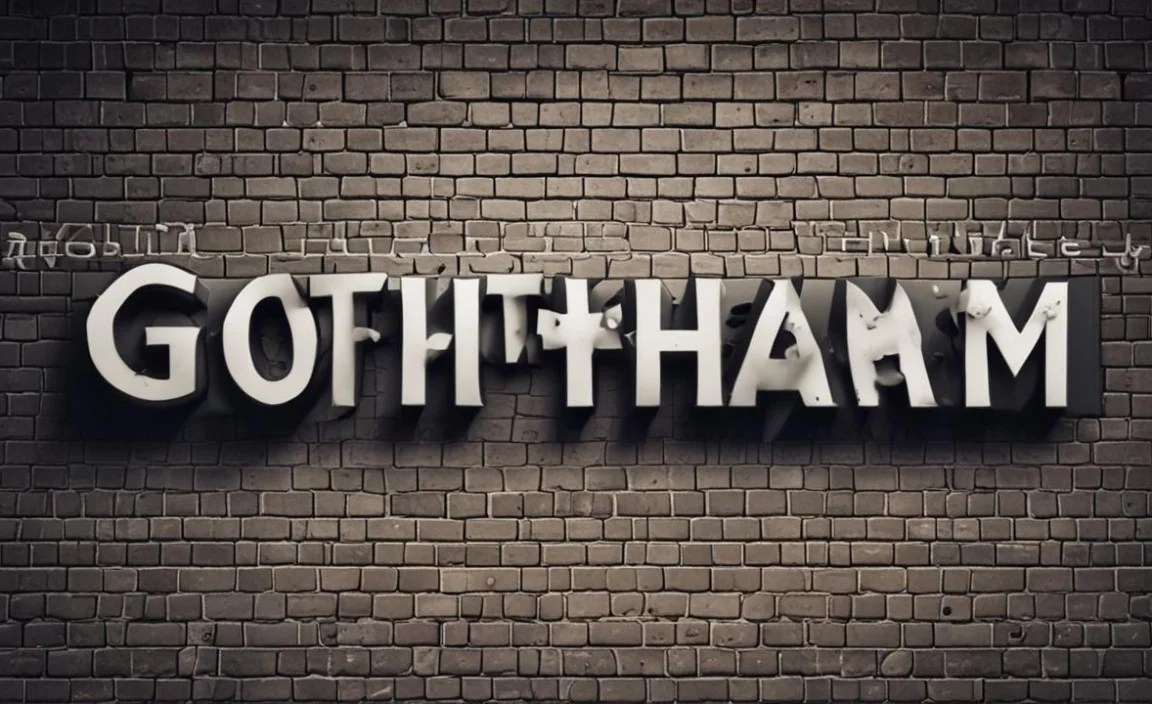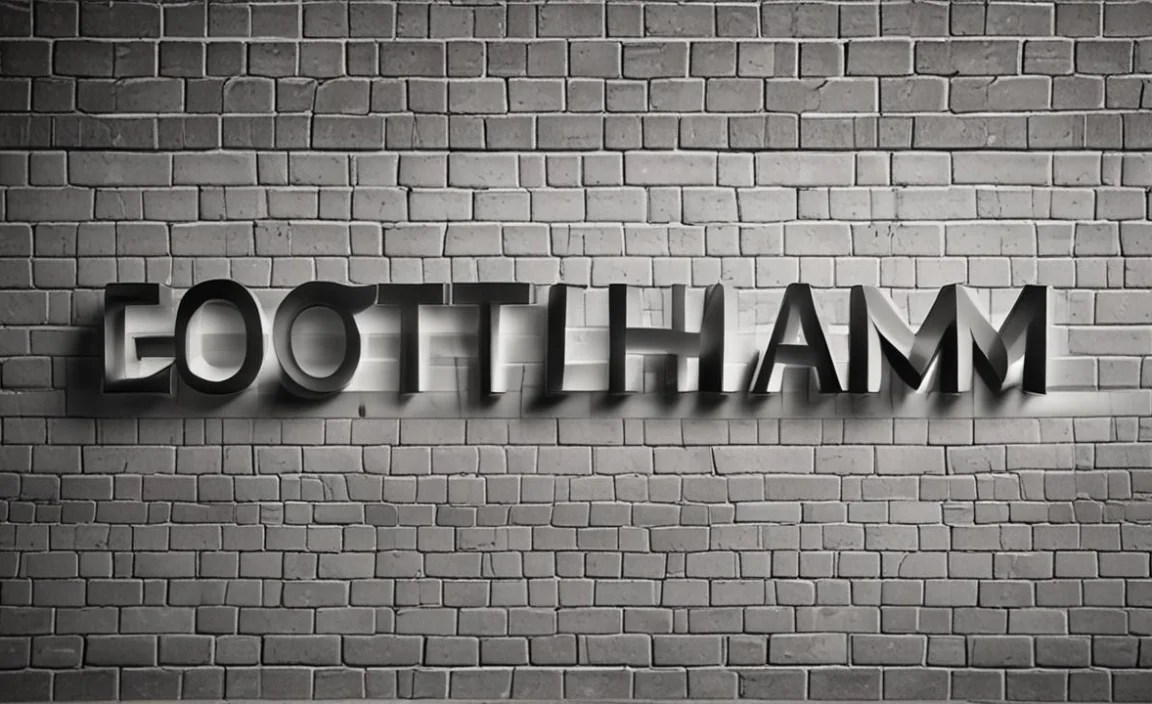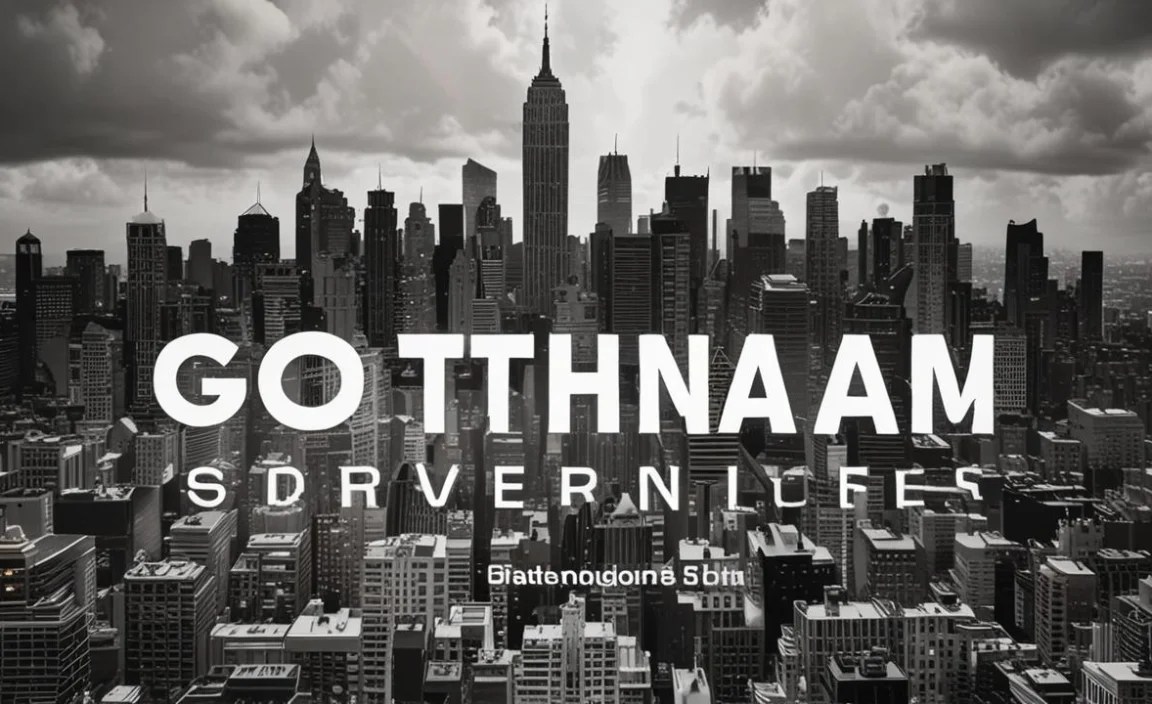
Gotham is a contemporary sans-serif typeface known for its clean lines, modern aesthetics, and versatile usage. Designed by Tobias Frere-Jones in 2000, Gotham has quickly become a favorite among designers and brands for its professional and approachable look.
Gotham Font Information:
| Name | Gotham |
| Designer | Tobias Frere-Jones |
| Type | Geometric Sans-serif |
Gotham Font Family Includes:
- Gotham Thin
- Gotham Thin Italic
- Gotham Extra Light
- Gotham Extra Light Italic
- Gotham Light
- Gotham Light Italic
- Gotham Book
- Gotham Book Italic
- Gotham Medium
- Gotham Medium Italic
- Gotham Bold
- Gotham Bold Italic
- Gotham Black
- Gotham Black Italic
- Gotham Ultra
- Gotham Ultra Italic
- Gotham XNarrow Thin
- Gotham XNarrow Thin Italic
- Gotham XNarrow Extra Light
- Gotham XNarrow Extra Light Italic
- Gotham XNarrow Light
- Gotham XNarrow Light Italic
- Gotham XNarrow Book
- Gotham XNarrow Book Italic
- Gotham XNarrow Medium
- Gotham XNarrow Medium Italic
- Gotham XNarrow Bold
- Gotham XNarrow Bold Italic
- Gotham XNarrow Black
- Gotham XNarrow Black Italic
- Gotham Condensed Thin
- Gotham Condensed Thin Italic
- Gotham Condensed Extra Light
- Gotham Condensed Extra Light Italic
- Gotham Condensed Light
- Gotham Condensed Light Italic
- Gotham Condensed Book
- Gotham Condensed Book Italic
- Gotham Condensed Medium
- Gotham Condensed Medium Italic
- Gotham Condensed Bold
- Gotham Condensed Bold Italic
- Gotham Condensed Black
- Gotham Condensed Black Italic
- Gotham Narrow Thin
- Gotham Narrow Thin Italic
- Gotham Narrow Extra Light
- Gotham Narrow Extra Light Italic
- Gotham Narrow Light
- Gotham Narrow Light Italic
- Gotham Narrow Book
- Gotham Narrow Book Italic
- Gotham Narrow Medium
- Gotham Narrow Medium Italic
- Gotham Narrow Bold
- Gotham Narrow Bold Italic
- Gotham Narrow Black
- Gotham Narrow Black Italic
- Gotham Rounded Light
- Gotham Rounded Light Italic
- Gotham Rounded Book
- Gotham Rounded Book Italic
- Gotham Rounded Medium
- Gotham Rounded Medium Italic
- Gotham Rounded Bold
- Gotham Rounded Bold Italic
- Gotham Rounded Black
- Gotham Rounded Black Italic
Where Gotham Font Is in Use
Gotham is widely used across various design disciplines, including corporate branding, advertising, editorial, and web design. Its geometric structure and versatile style make it a preferred choice for many high-profile projects. Notable uses include:
- Barack Obama’s 2008 presidential campaign materials
- Coca-Cola’s branding
- Spotify’s interface
- New York University’s branding
Gotham Font Alternatives
Gotham Font FAQs
2. Why is Gotham a Popular Choice Among Designers?
Gotham’s popularity stems from its clean, modern design and versatile usage, making it ideal for various design applications, from corporate branding to digital interfaces.
3. What Is Microsoft Font Similar To Gotham?
Proxima Nova is a similar font to Gotham in the Microsoft library. Gotham is a sans serif font designed by Tobias Frere-Jones and is part of the Gotham font family, which includes variations like Gotham Book, Gotham Bold, and Gotham Light. For a free option, consider using fonts from Google Fonts, like Raleway or Museo Sans. If you’re looking for a web font, Gotham is also available in formats like Gotham Medium Italic and Gotham Black Italic.
4. What Is The Cultural Significance Of Gotham Font?
The Gotham font family includes styles such as Gotham Book, Gotham Bold, and Gotham Rounded, making it suitable for diverse applications, from web fonts to print. Related fonts like Proxima Nova and Museo Sans share similar characteristics, enhancing its appeal.
7. What Pairs Well With Gotham Font?
Gotham font pairs well with related fonts such as Museo Sans and Raleway font. It belongs to the sans serif font family, designed by Tobias Frere-Jones, and comes in various styles, such as Gotham Book, Gotham Bold, Gotham Light, and Gotham Rounded.